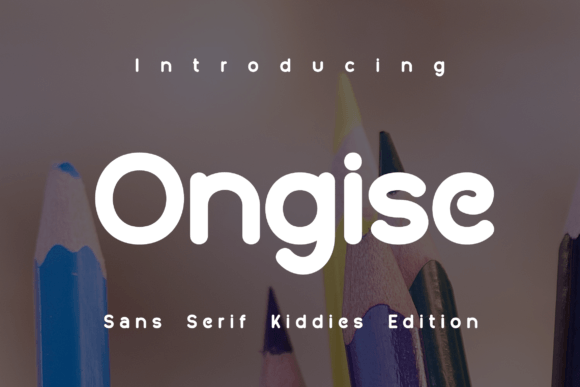
In a world of boundless creativity, where imagination knows no bounds, meet Ongise Monde Font, the ultimate sans serif font family tailored to ignite your graphic design endeavors. Crafted with precision and artistic flair by the visionary designer ponuppo, this font collection transcends the ordinary, unlocking a realm of endless possibilities for your visual masterpieces.
With its bold and captivating strokes, Ongise Monde Font asserts its presence in the digital realm, demanding attention and leaving an indelible mark on your designs. Its meticulously designed alphabet exudes a sense of playfulness and energy, effortlessly capturing the essence of geometric shapes and the whimsical world of children's characters.
Unleash your inner child and let your creativity soar with Ongise Monde Font. Its distinct style brings clarity and vibrancy to your designs, making them effortlessly readable and captivating. Immerse yourself in the font's ability to evoke emotions, resonate with your audience, and leave a lasting impression that lingers long after the final stroke.
As you embark on your graphic design journey with Ongise Monde Font, discover the boundless opportunities it presents. From playful and whimsical illustrations to bold and impactful branding, this versatile font family effortlessly adapts to your unique vision, elevating your designs to new heights.
Embrace the power of Ongise Monde Font and step into a world where imagination reigns supreme. Let your designs speak volumes, captivating your audience with their charm, clarity, and undeniable visual appeal. The possibilities are limitless, waiting for you to unleash your creativity and make a statement that resonates with the world.